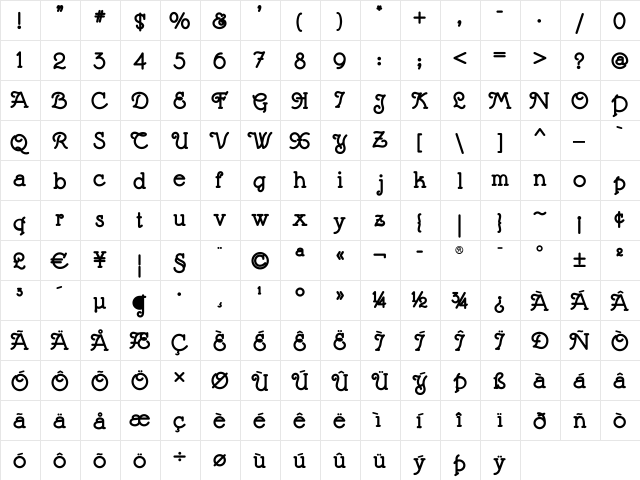
MargaritaVilleNF Regular
| Foundry | Nick's Fonts |
| Designer | Nick Curtis |
Design Context for MargaritaVilleNF Typeface
MargaritaVilleNF is a composed and adaptable typeface that performs quietly and consistently across a wide range of design contexts.